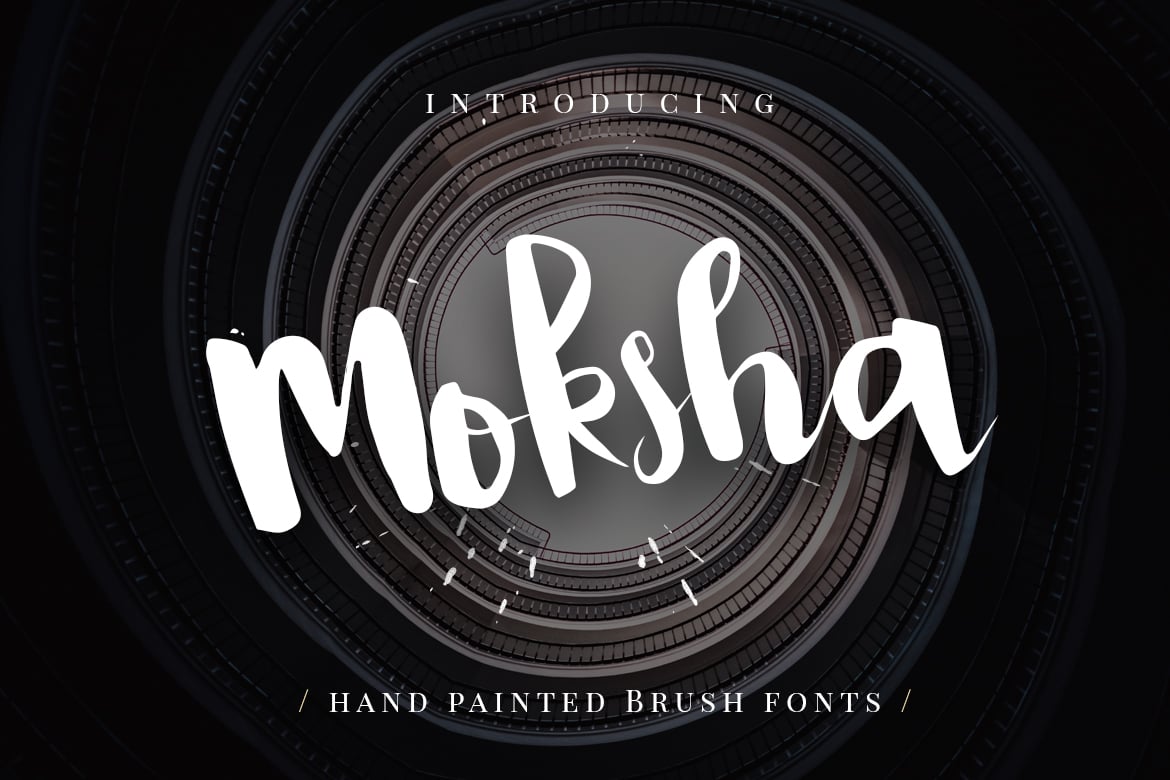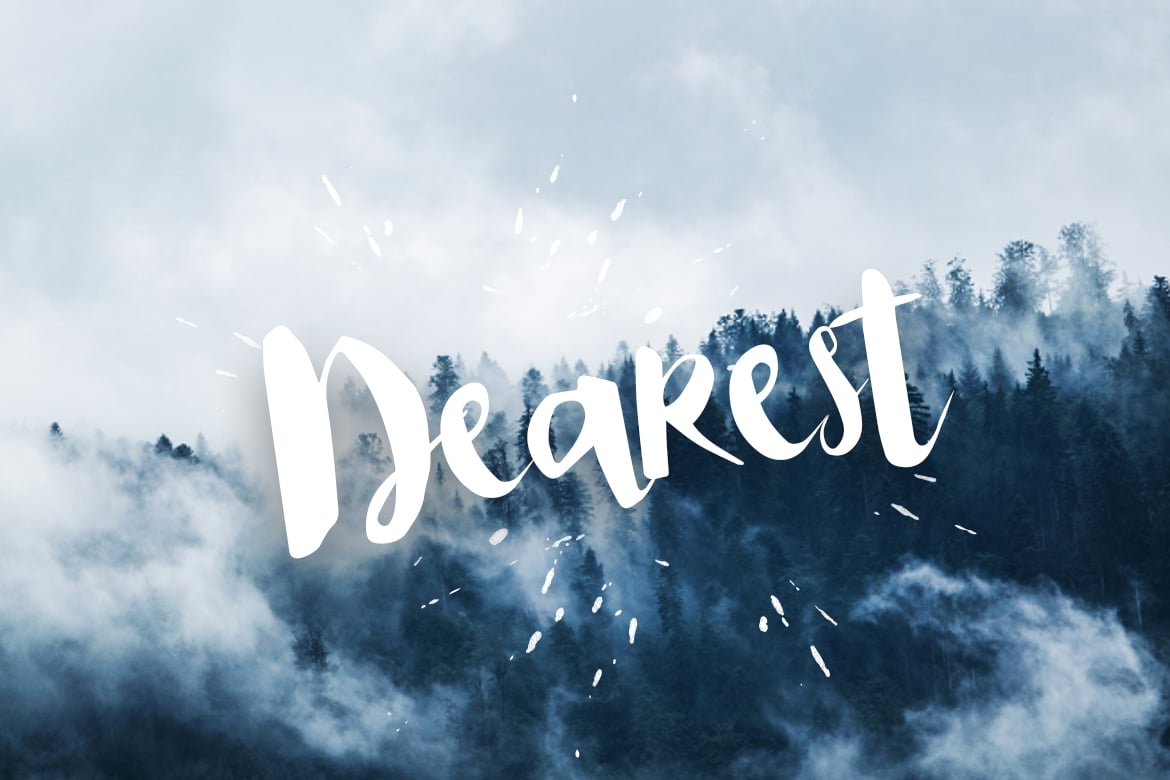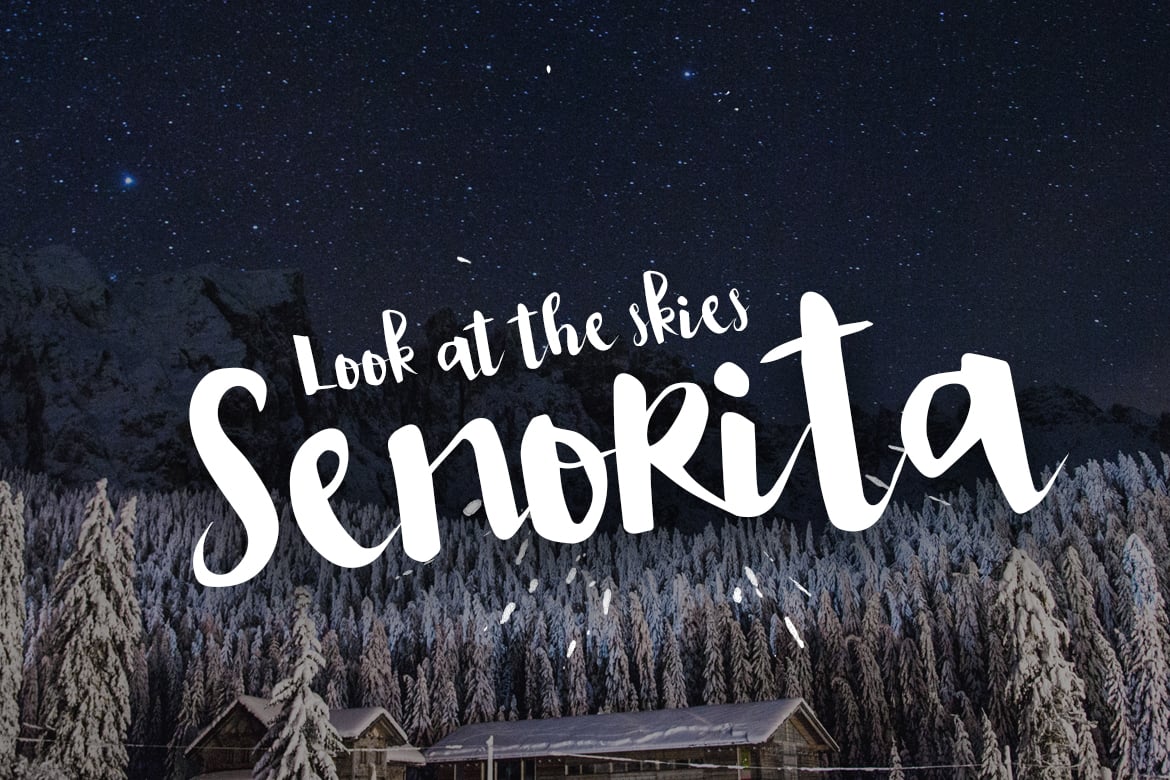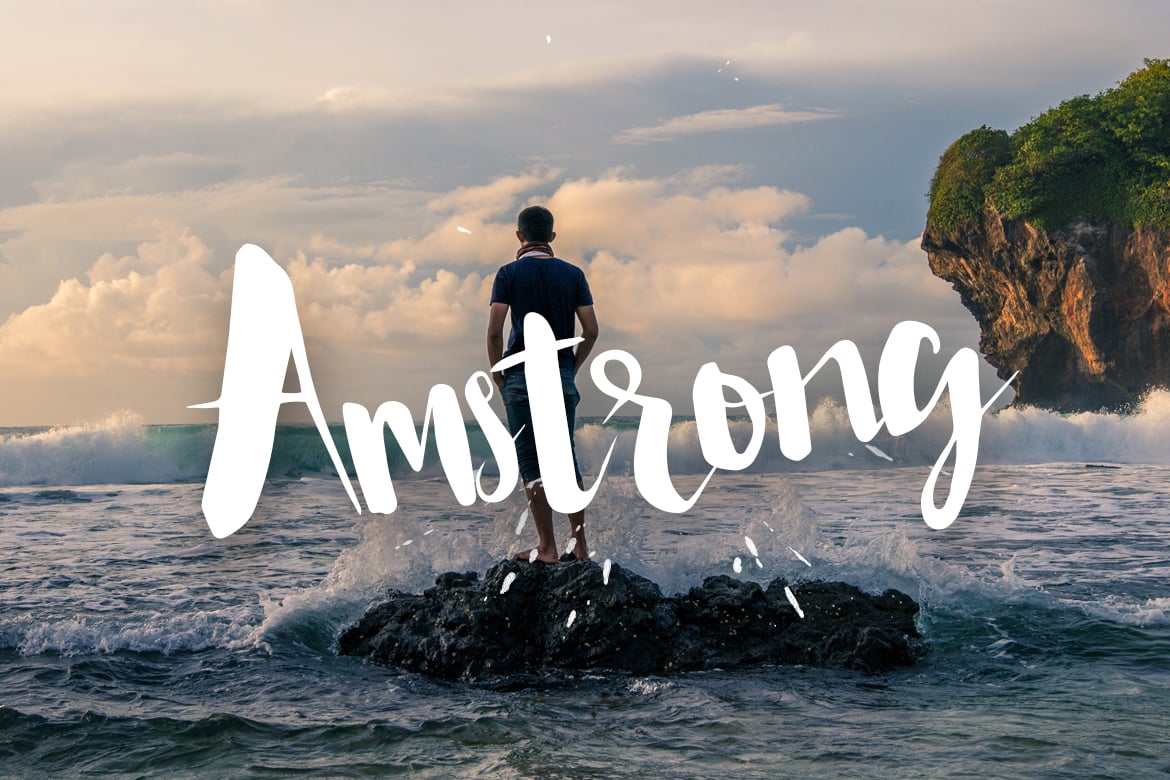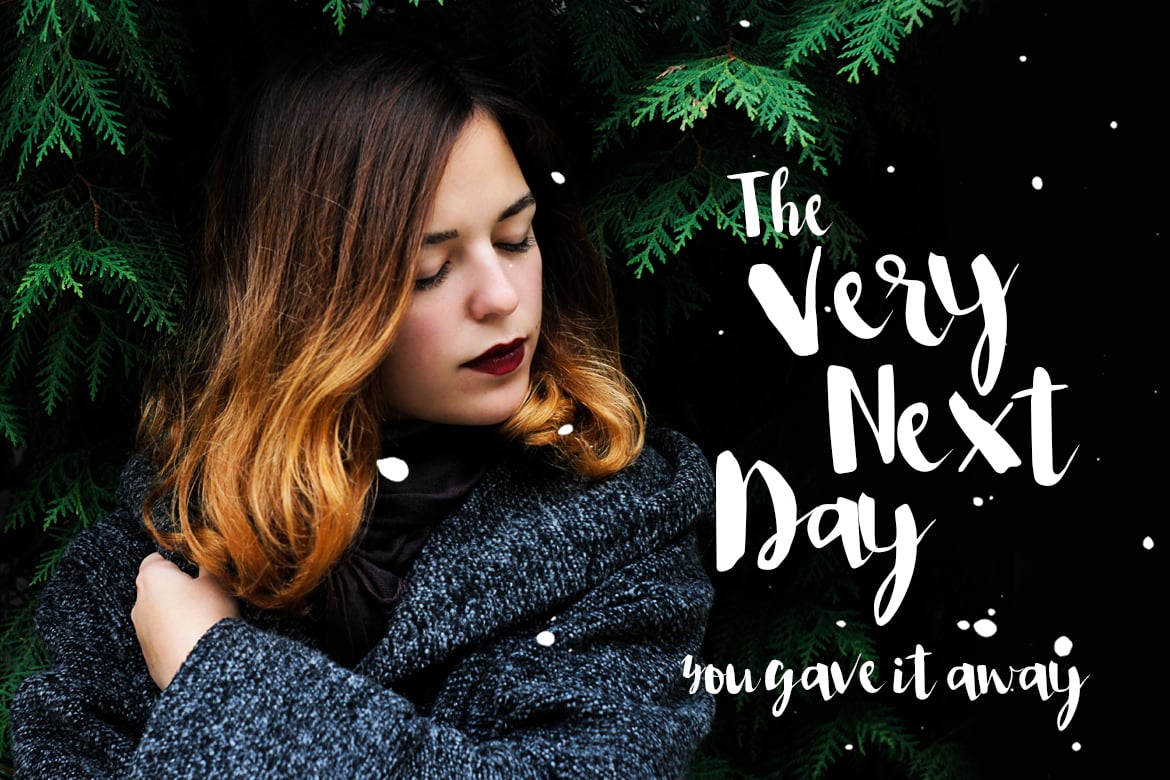
Moksha – Hand Painted Brush Font
We Provide You one of the best Stylish Hand Written Script.
Best match for logos, header, Titles, Prints & other Creative process possibilities.
Create a Extraordinary Typography / lettering results by using Moksha Handmade font script